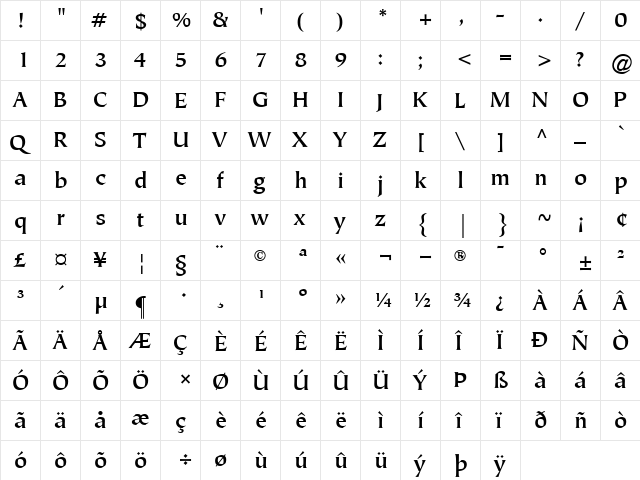
ITCTiepolo Bold
Design Context for ITCTiepolo Typeface
ITCTiepolo takes a measured approach to typography — its balanced proportions and neutral character make it a reliable workhorse for both digital and print work. Its bold stroke weight gives it real presence on the page.
Pro Tip: Pair ITCTiepolo with a font of contrasting weight or personality to build a more expressive typographic hierarchy.